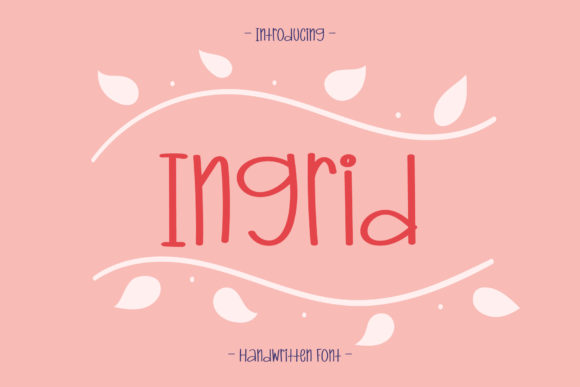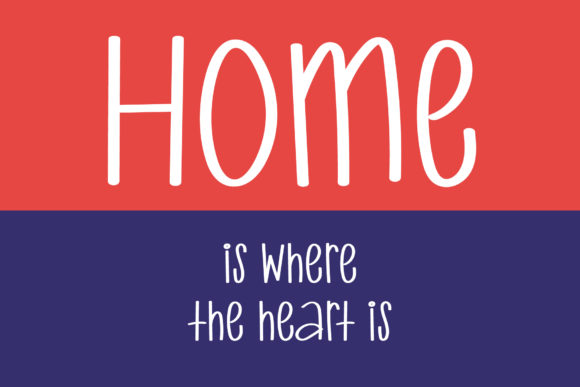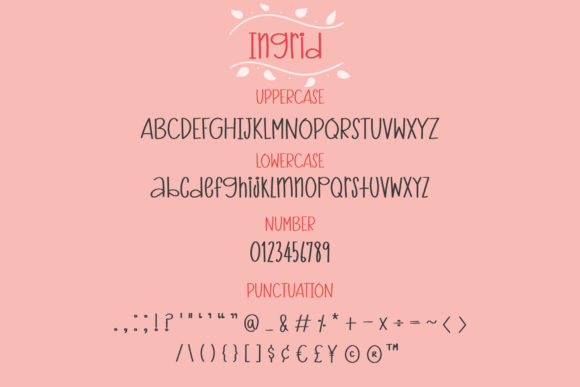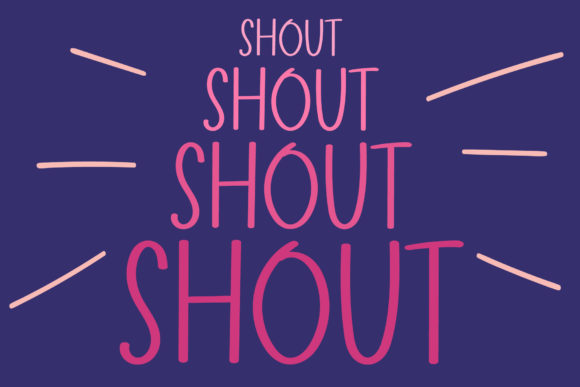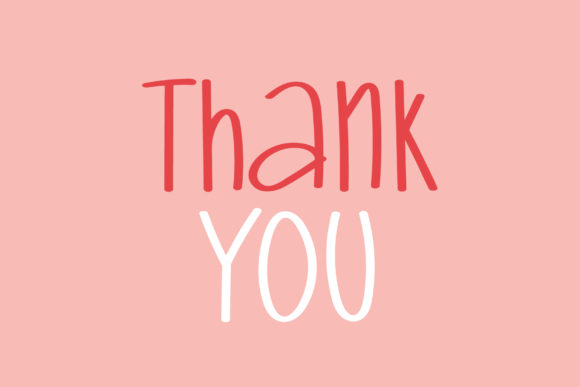
Ingrid Font
About Ingrid Font
Ingrid feels equally charming and elegant. This handwritten font is the perfect fit for all of your logos, branding, social media, and crafty DIY projects.